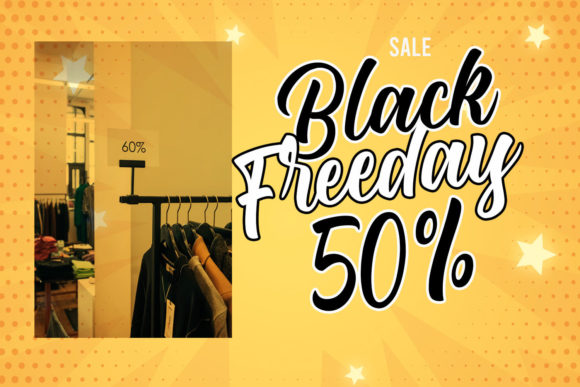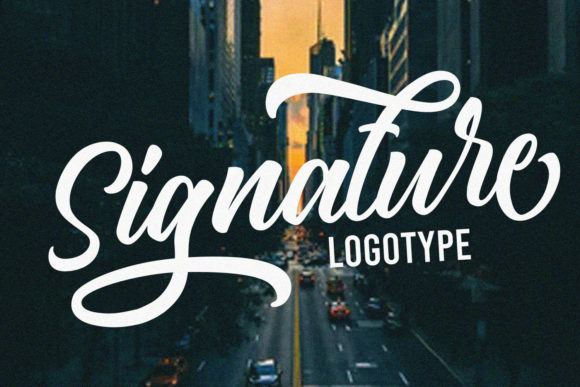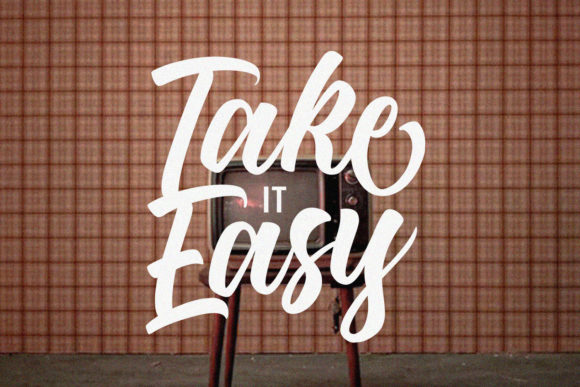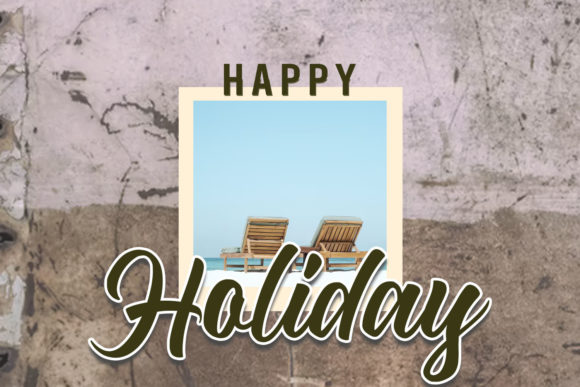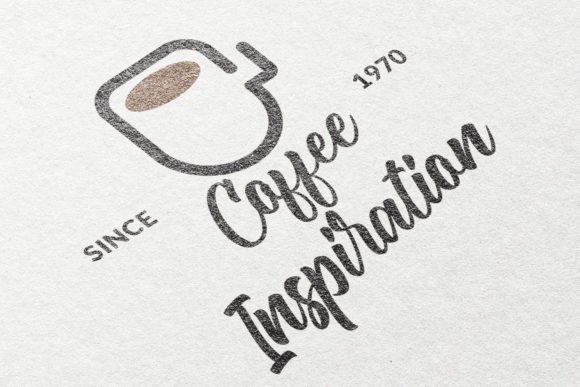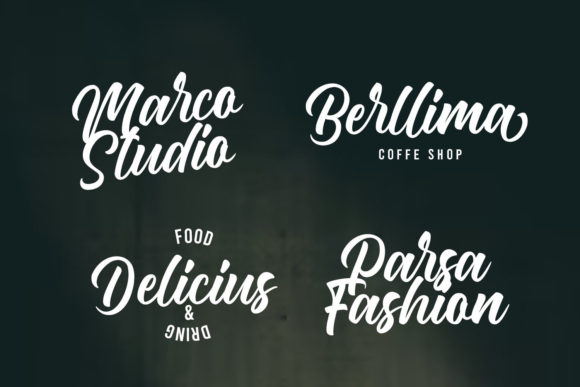
Discover the Elegance of Angela Font: A Delicate Handwritten Script
Are you a designer or crafter looking for a font that exudes elegance and sophistication? Look no further than Angela Font, a beautiful handwritten script that is sure to elevate your designs to the next level. In this article, we’ll take a closer look at what makes Angela Font so special and why it’s a must-have for any creative project.
A Delicate, Elegant, and Flowing Handwritten Font
Angela Font is a delicate, elegant, and flowing handwritten font that is perfect for a wide range of design applications. Its beautiful and well-balanced characters make it an ideal choice for projects that require a touch of sophistication and refinement. Whether you’re designing a logo, creating a social media graphic, or crafting a handmade card, Angela Font is sure to impress.
One of the standout features of Angela Font is its elegant and flowing script. The font’s characters are carefully crafted to create a sense of movement and fluidity, making it perfect for designs that require a sense of dynamism and energy. At the same time, the font’s delicate nature ensures that it remains refined and sophisticated, making it suitable for even the most formal design applications.
Beautifully Balanced Characters
One of the key features that sets Angela Font apart from other handwritten fonts is its beautifully balanced characters. Each letter is carefully crafted to ensure that it is proportionate and harmonious with the others, creating a sense of visual balance and cohesion. This makes it easy to use Angela Font in a wide range of designs, from simple and minimalist to complex and ornate.
The beautiful balance of Angela Font’s characters also makes it an excellent choice for body text and longer blocks of writing. Unlike some handwritten fonts that can be difficult to read in large quantities, Angela Font remains clear and legible even when used for extended passages of text.
PUA Encoded for Easy Access to Glyphs and Swashes
Angela Font is PUA (Private Use Area) encoded, which means that it includes a wide range of glyphs and swashes that can be easily accessed and used in your designs. This makes it easy to add flourishes and other decorative elements to your work, giving you even more creative flexibility and control.
With Angela Font, you can easily access alternative characters, ligatures, and swashes using your software’s glyphs panel or character map. This means that you can customize your designs to suit your needs and create unique and eye-catching graphics that stand out from the crowd.
Matching a Wide Pool of Designs
Angela Font is a versatile font that can be used in a wide range of design applications. Its elegant and refined nature makes it perfect for formal designs, such as wedding invitations, business cards, and luxury branding. At the same time, its playful and flowing script makes it suitable for more creative and whimsical projects, such as handmade cards, scrapbooking, and children’s crafts.
Whether you’re a professional designer or a crafty DIY enthusiast, Angela Font is a great addition to your font library. Its versatility and flexibility make it easy to use in a wide range of projects, and its beautiful and well-balanced characters ensure that your designs will always look polished and professional.
In conclusion, Angela Font is a beautiful and elegant handwritten font that is perfect for designers and crafters looking to add a touch of sophistication and refinement to their work. Its delicate and flowing script, beautifully balanced characters, and PUA encoding make it a versatile and flexible font that can be used in a wide range of design applications.
Whether you’re creating a formal design or a more creative project, Angela Font is sure to impress. So why not give it a try and see for yourself why it’s a must-have font for any creative project?